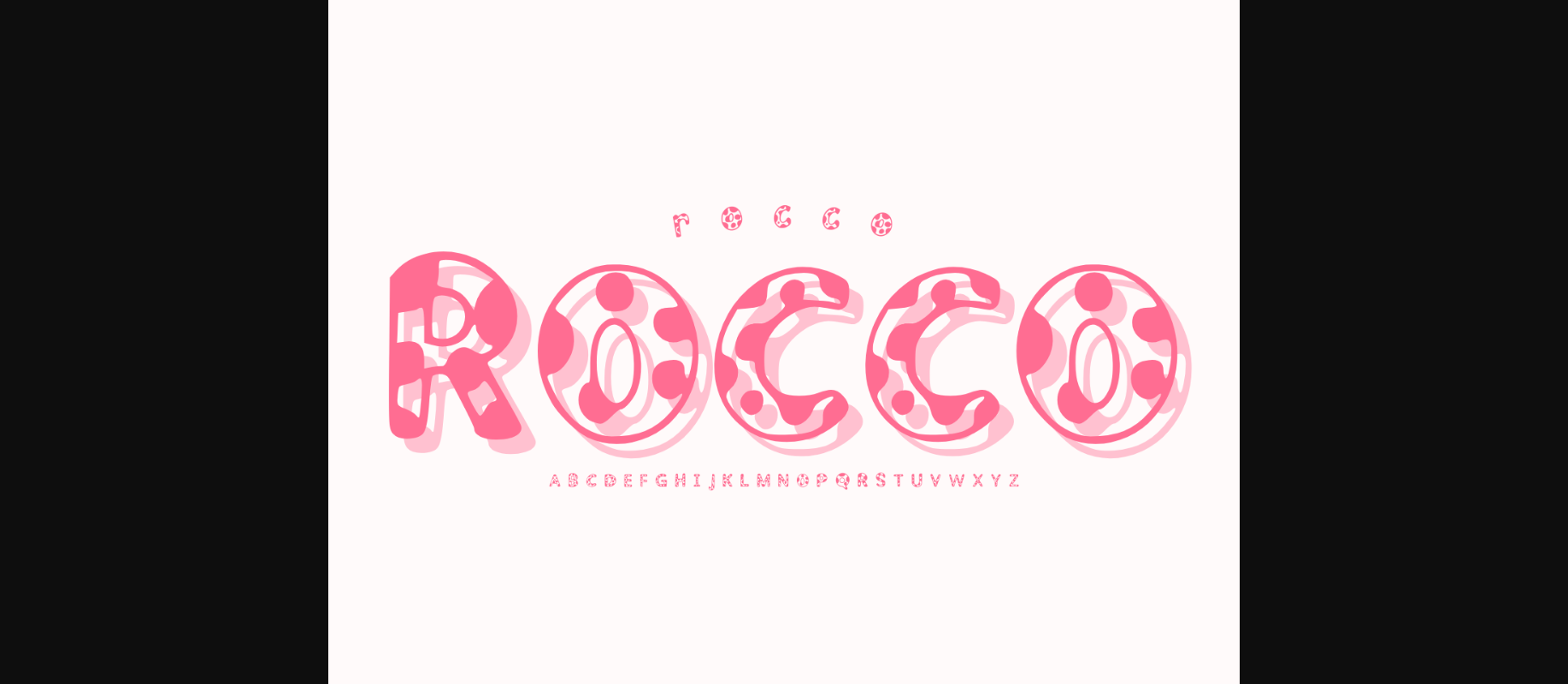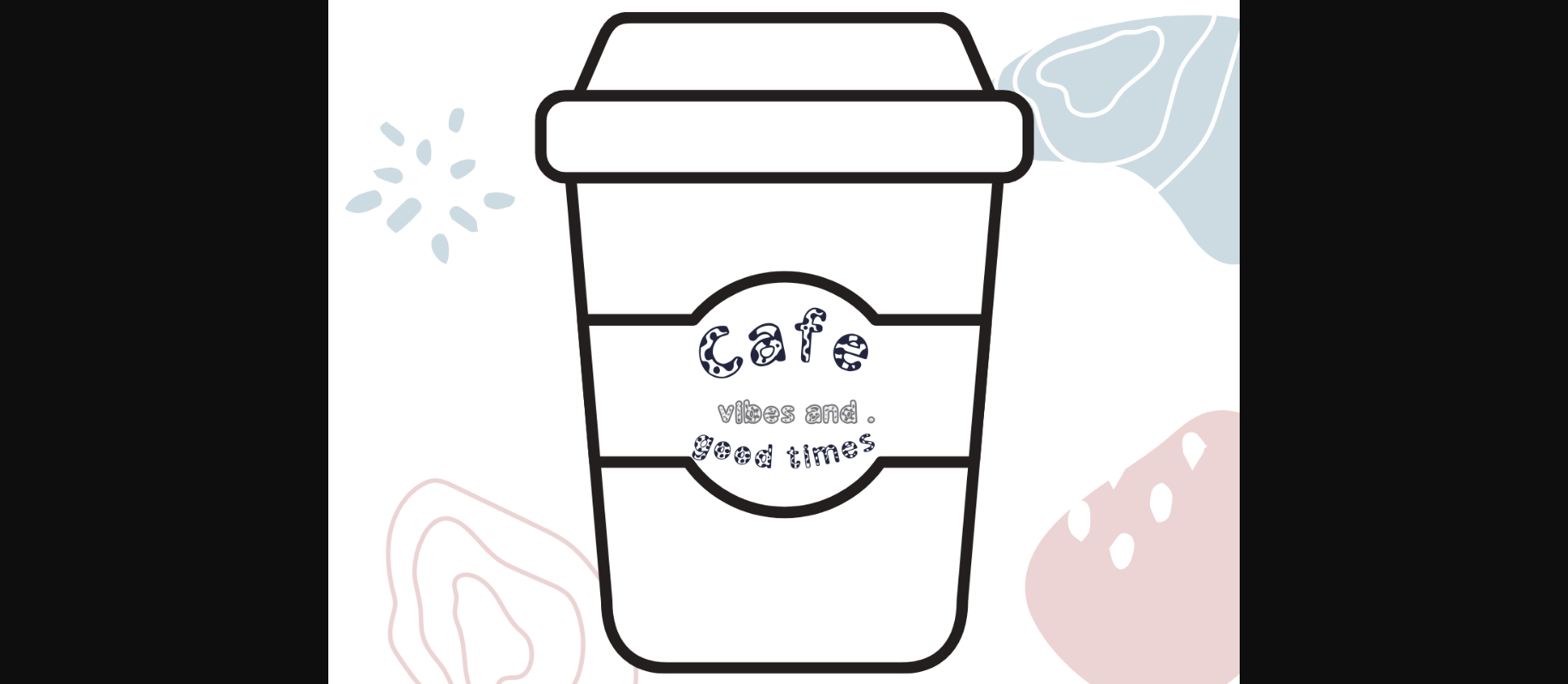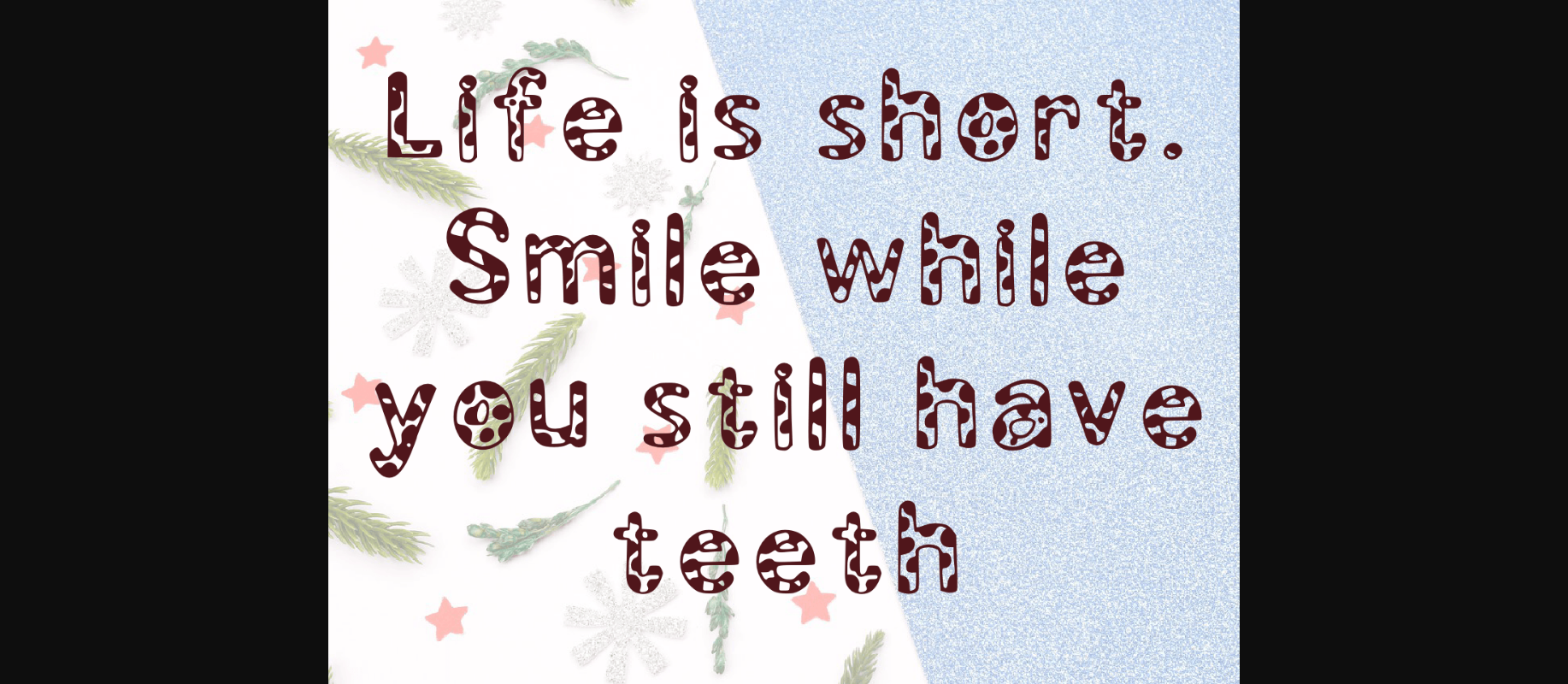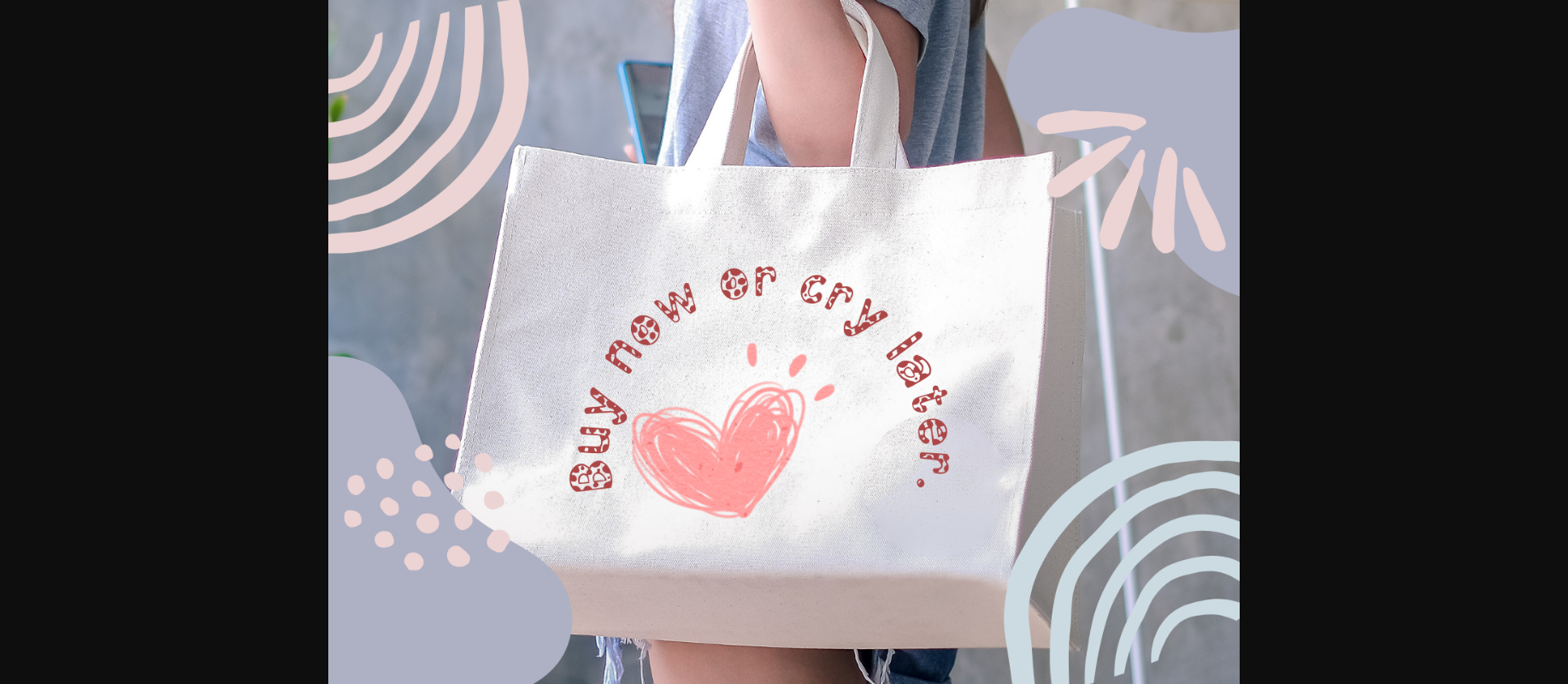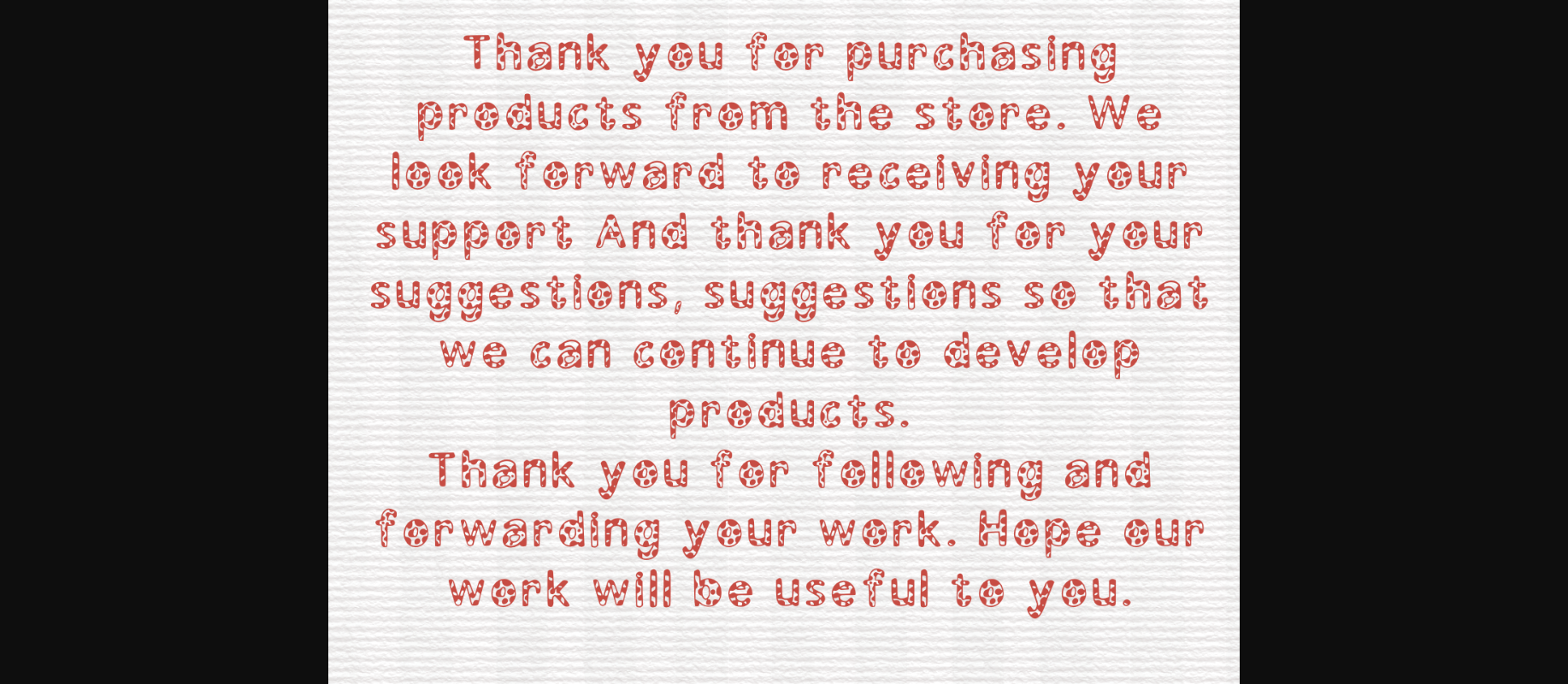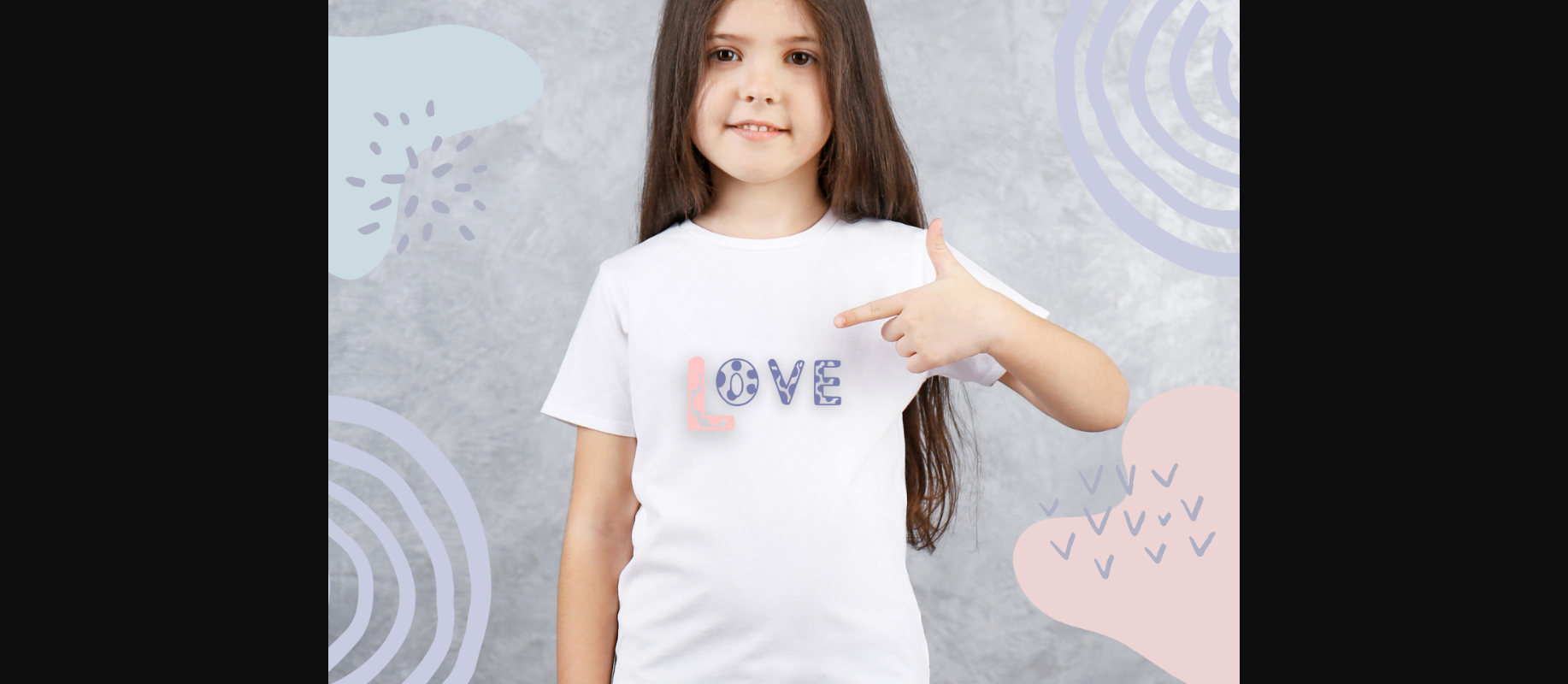
Rocco Font
About Rocco Font
Rocco is a playful and charming decorative font that will impress you with its versatility! Use it on product packaging, banners, flyers, storybooks, name tags, branding, logos, and so much more.